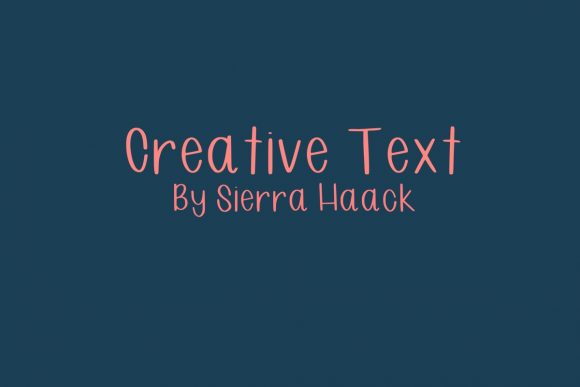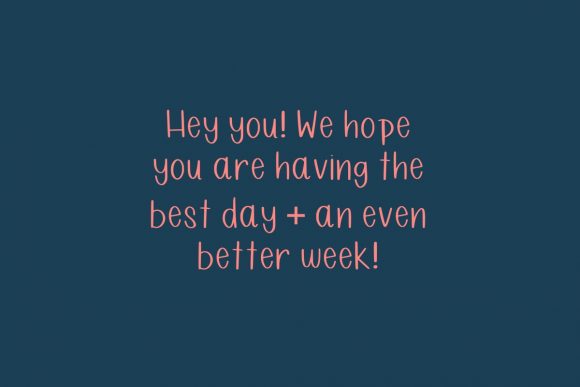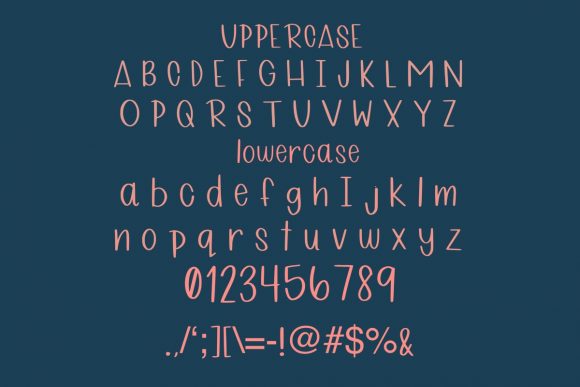
Creative Text Font
About Creative Text Font
Creative text is a playful handwritten font. It includes the entire alphabet lowercase and capitals, as well as numbers 0-9 and a few punctuation marks. Creative Text is perfect for those looking to create an authentic handwritten look to any craft project. Font works well with apps like procreate, photoshop, and Cricut Design Space.